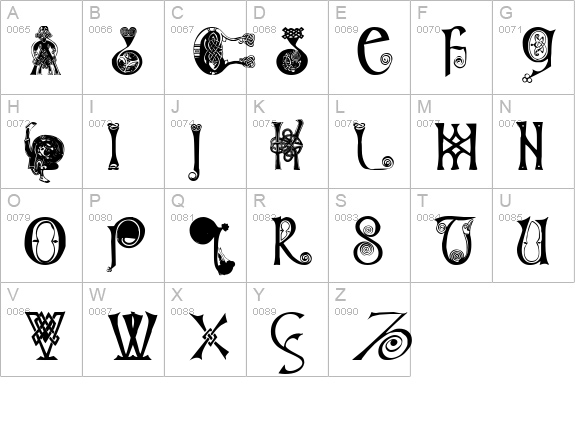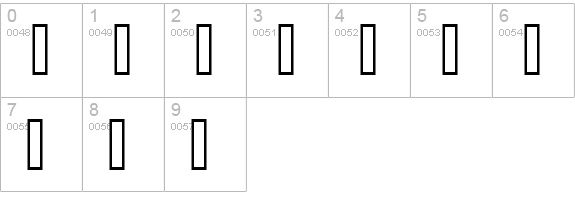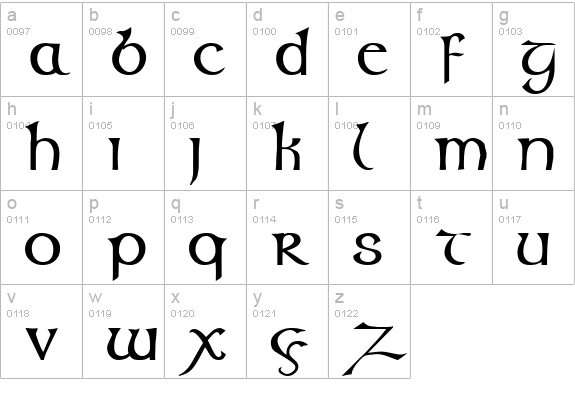
Columba Font Details
Introducing Columba font, a beautifully crafted typeface that exudes elegance and sophistication. With its sleek lines and modern design, Columba is perfect for a wide range of projects, from branding to editorial design. This versatile font features a unique blend of classic and contemporary elements, making it a standout choice for any creative endeavor. What sets Columba font apart is not only its aesthetic appeal but also its accessibility. It is available for free download at FontsMarket.com, allowing designers and creators to easily incorporate this stunning typeface into their work without any cost. Whether you're working on a logo, website, or print materials, Columba font is sure to elevate your project and make a lasting impression. Don't miss out on the opportunity to enhance your designs with the timeless beauty of Columba font. Download it for free today and experience the endless possibilities this exquisite typeface has to offer.